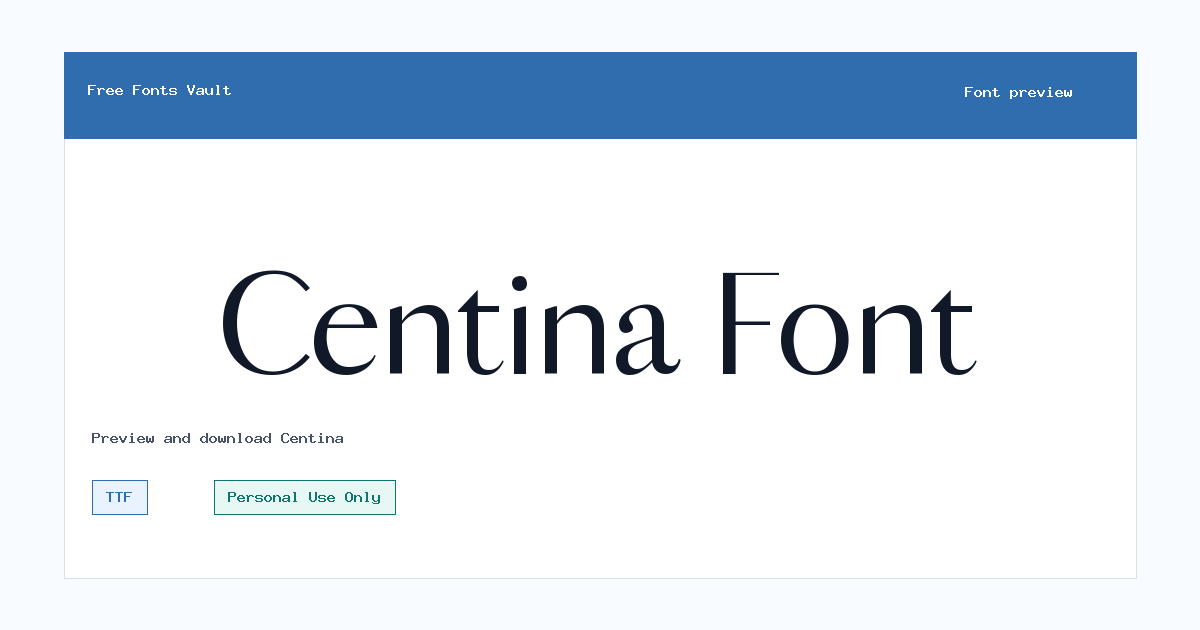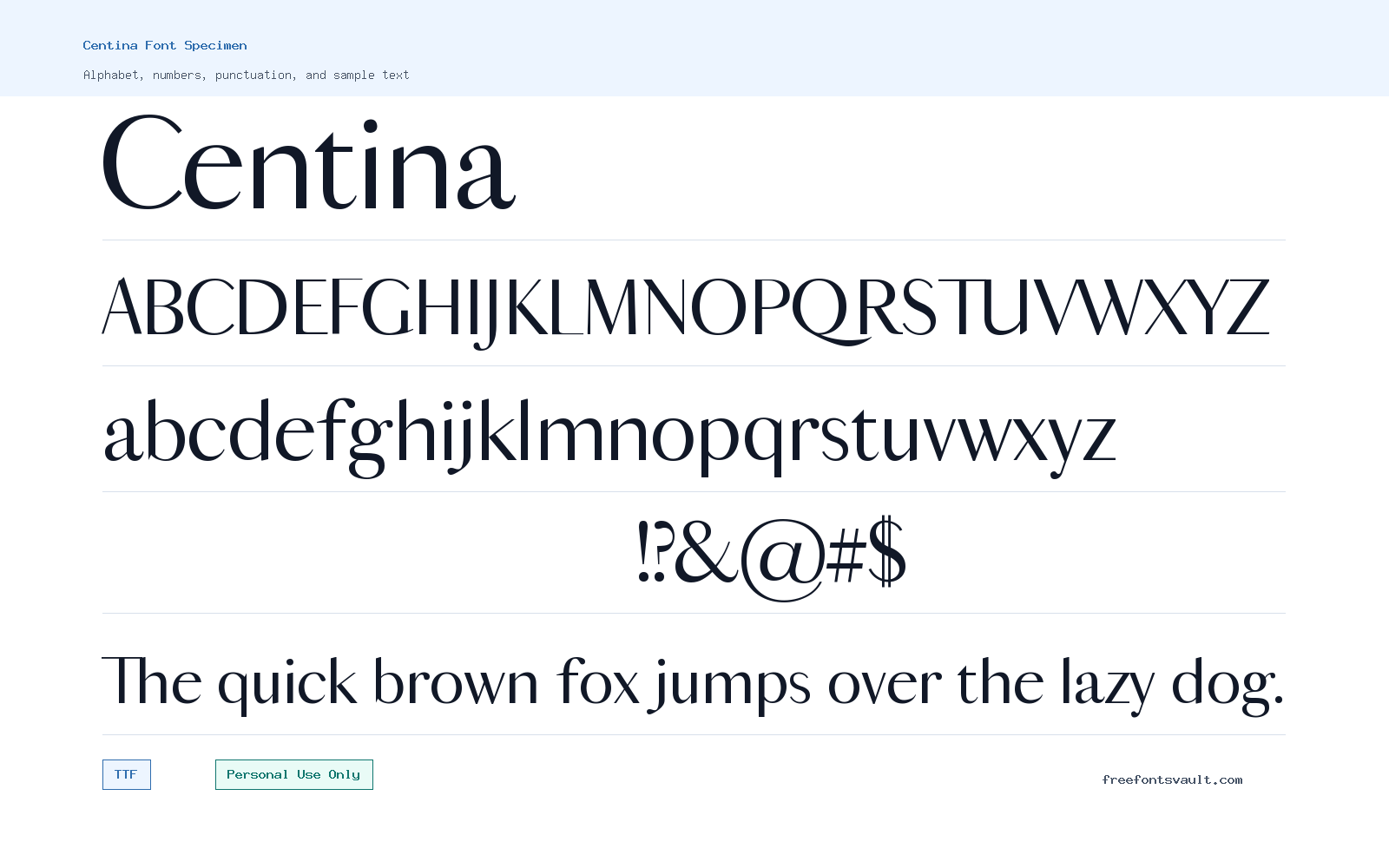
Centina
Centina font.
About Centina
Centina works best when you treat it as a display-friendly serif rather than a font for every job. In the preview box, test it with names, short titles, headings, label text, quotes, and a few mixed-case lines. Serif fonts often show their character most clearly in larger sizes, where the letter shapes, spacing, and rhythm are easier to judge. If you are planning a poster, invitation draft, mood board, personal logo concept, scrapbook page, social graphic, or classroom design, preview your exact wording first instead of judging the font from the family name alone.
The download contains a regular style in TTF format. That makes Centina easy to test in many common design and word-processing apps, but it also means you should plan around a single weight unless you add contrast through size, spacing, color, or a pairing font. For longer paragraphs, check readability carefully at smaller sizes. A decorative or high-contrast serif can look polished in a title while feeling too delicate or busy in body copy. Pair Centina with a plain sans serif for supporting text, captions, dates, or navigation-style details, so the serif can stay focused on the words that need attention.
- Serif styling suited to short text, headings, and personal design layouts.
- Personal invitations, greeting cards, quotes, posters, and scrapbook-style designs.
- Heading tests, name treatments, title graphics, and typography mockups where a serif voice is useful.
What style of font is Centina?
Centina is presented as a serif font with a regular style. It is best judged in the live preview with your own wording, especially for headings and short display text.
Is Centina good for long paragraphs?
Test it first. A serif can work well for titles and short lines, but small body text needs careful checking for spacing, contrast, and comfort over several sentences.